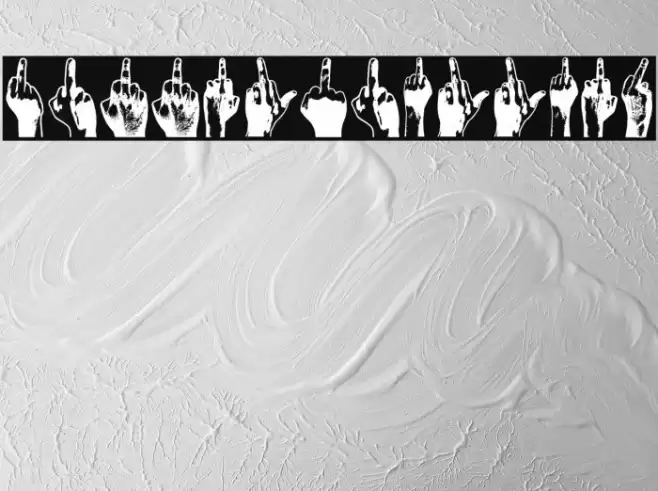
Middle Finger Regular Font
Middle Finger Regular Description
A highly unconventional and provocative display font composed entirely of illustrated hands making an obscene gesture, with each character represented by a different hand pose. The style is bold, high-contrast, and graphic, using solid black and white for maximum visual impact.
A display font using illustrated hands making an obscene gesture for each character from Uncategorized fonts.
- Proposed Projects: Satirical posters, protest art, underground zines, rebellious branding, or shock-value event flyers.
- Overall Style: Decorative, Provocative, Graphic
- Use Case: Display, Posters, Art projects, Satirical content